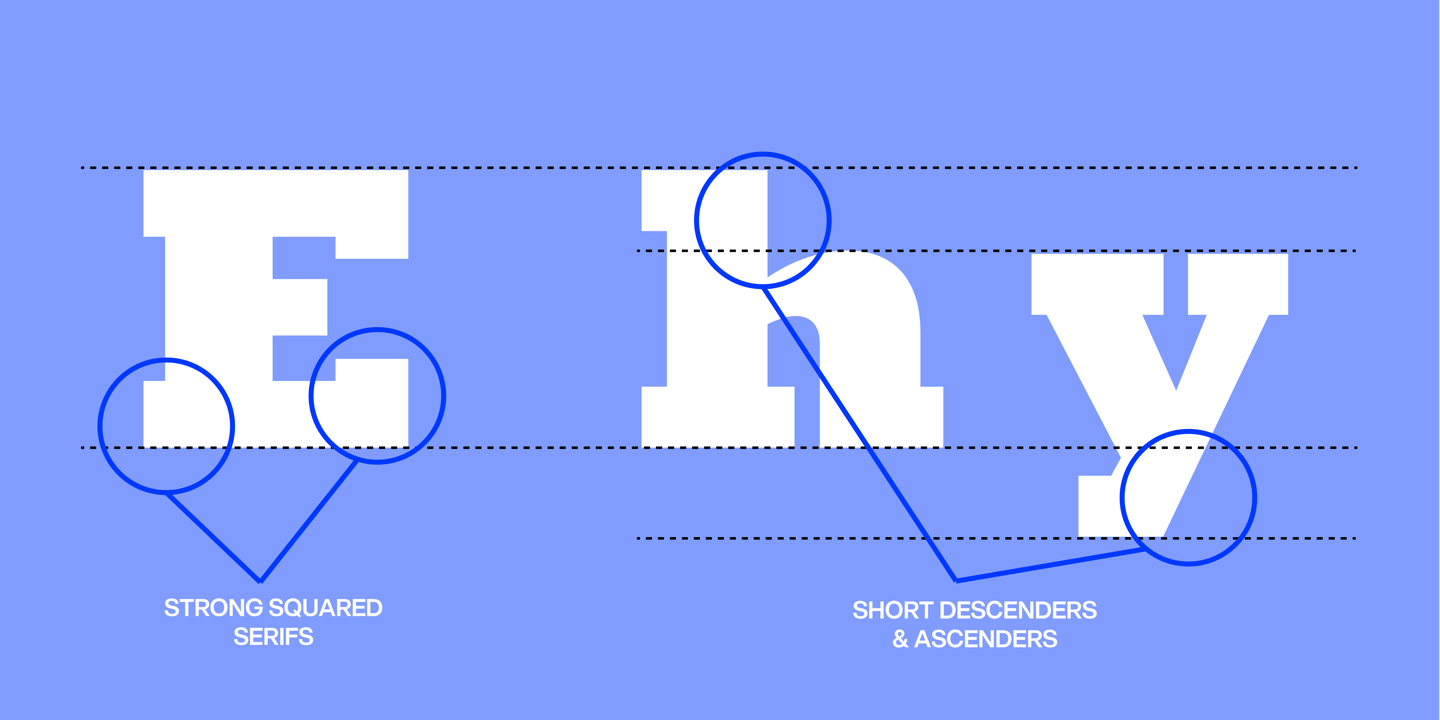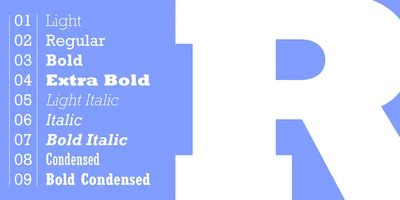
Reckless vs Rockwell
Reckless and Rockwell are both serif typefaces sharing a bold foundation. Where Reckless leans display, high contrast, Rockwell brings slab serif, geometric. Compare which suits your Editorial project.
Design overlap:17%
| Feature | Reckless | Rockwell |
| Source | Displaay | Monotype |
Recommended: Reckless
- display, high contrast design character
- Suited for Display and Fashion
- From displaay
Consider: Rockwell
- slab serif, geometric design character
- Suited for Branding and Advertising
- From monotype